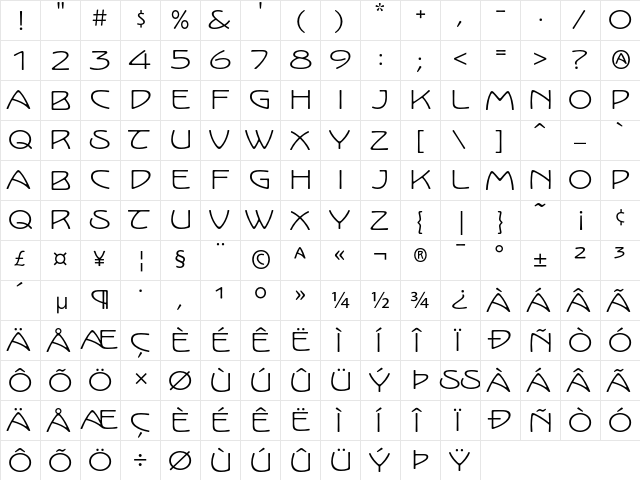
Kolo LP Wide
Design Context for Kolo LP Typeface
Kolo LP is a composed and adaptable typeface that performs quietly and consistently across a wide range of design contexts.
Pro Tip: Use Kolo LP in both headline and body roles to test its range before committing to a single application.